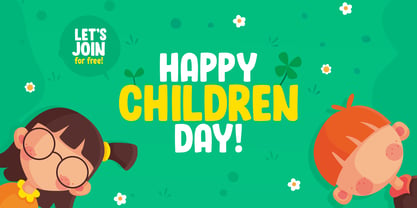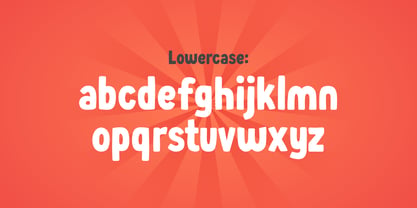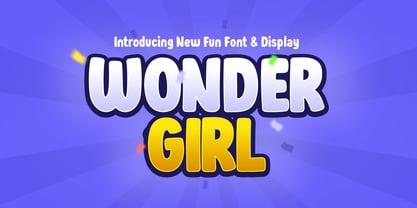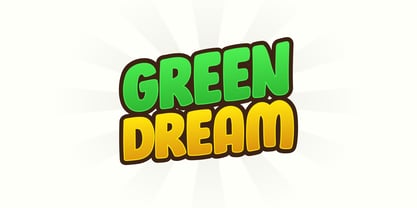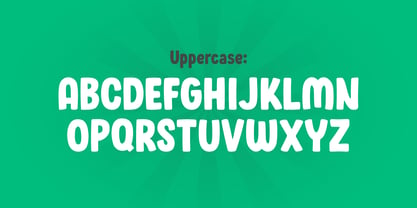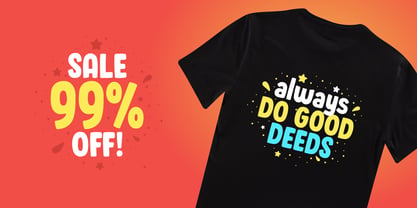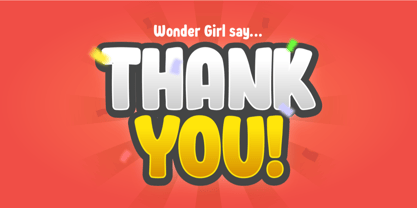
Wonder Girl
by Sensatype Studio
The Wonder Girl Font Family was designed by Zamroni Hamzah and published by Sensatype Studio. Wonder Girl contains 1 styles. More about this family
Do you want to find a good font for Display, but look fun kids? Wonder Girl is the answer...
Wonder Girl is Our first Fun Kids Font and Display, are designed for Titles, Headline, Subtitles and many more you want. It has own unique style with rounded in each corner. Wonder Girl is a type family ideal for display, game title, text, print, branding, signage, and also for user interfaces, mobile devices, especially web design creation, with a set of optimal characters for your design in any layout.
Designers: Zamroni Hamzah
Foundry: Sensatype Studio